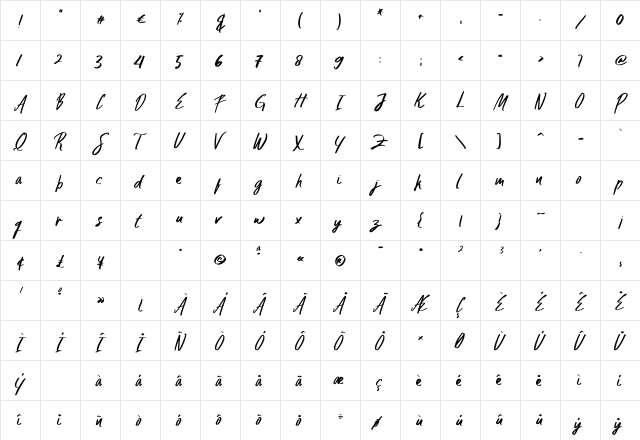
Zoltan Brownhate Regular
| Designer | Colllab Studio Team |
Design Context for Zoltan Brownhate Typeface
Zoltan Brownhate is a composed and adaptable typeface that performs quietly and consistently across a wide range of design contexts.